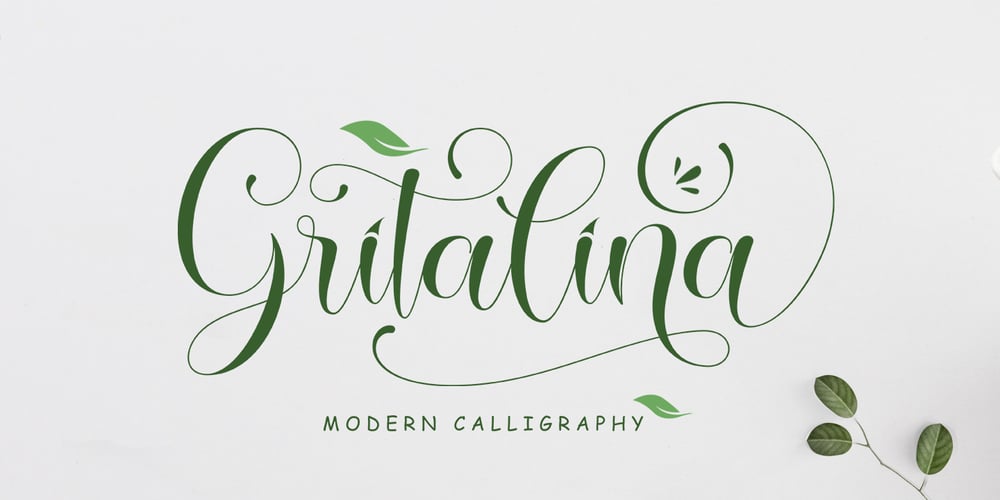
Gritalina Script Font Family was designed by Muhajir Akarim and published by Soft Creative. Gritalina Script contains 1 styles and family package options. Gritalina Modern Calligraphy is a new modern script font with an irregular baseline. Trendy and feminine style. Gritalina looks lovely on wedding invitations, thank you cards, quotes, greeting cards, logos, business cards and more. Perfect for using in ink or watercolour. Including initial and terminal letters, alternates and multiple language support.This font is available in several modern swirls that can make your work look elegant, sweet and perfect.